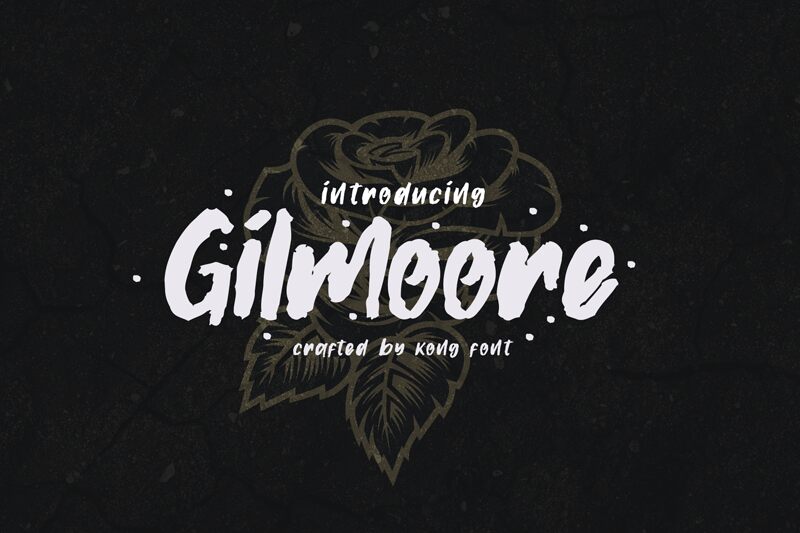
Gilmoore font family by Kong Font features a brush style with a contemporary appeal and an expressive character. The font family consists of 4 font styles with an energetic, informal, and artistic feel that contribute to its bold aesthetic. It is modern, edgy, and dynamic, which gives it its versatility to be used on different creative design and branding projects.
The curvy and unique design of Gilmoore makes it a suitable choice for posters, magazine covers, movie titles, successful branding, and packaging projects. It also does well in invitation backgrounds, apparel designs, logos, and eye-catching headlines.